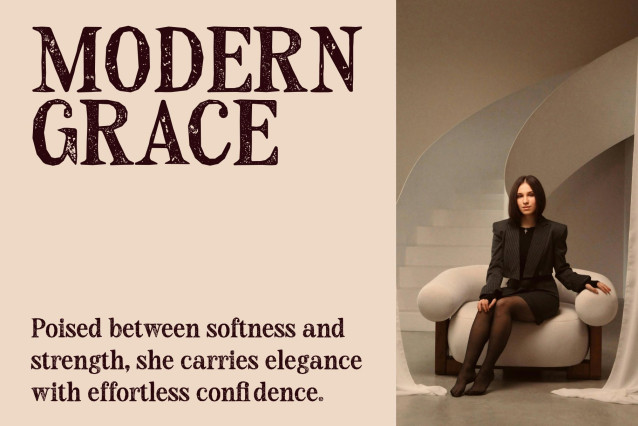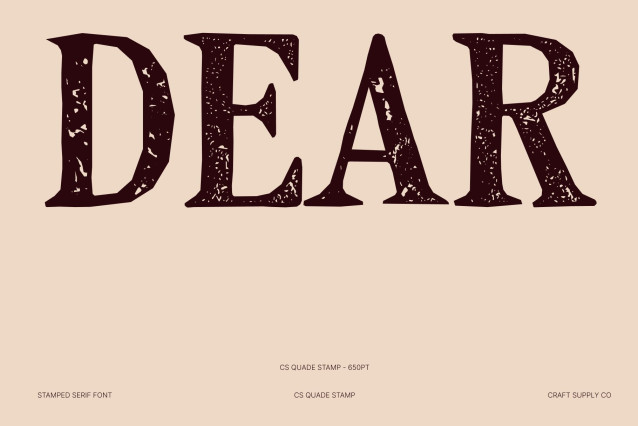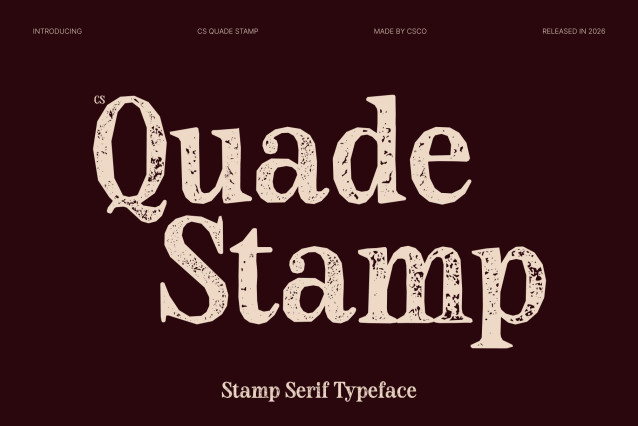
CS Quade Stamp Font
CS Quade Stamp – Modern Serif Font: Where Classic Beauty Meets Heritage Elegance
Slender Elongated Serifs with Refined Sophistication
This is a modern serif font designed with slender elongated serifs that radiate elegance, refinement, and timeless style. Its graceful proportions and clean contemporary structure create a luxurious visual rhythm, allowing every composition to feel polished, artistic, and high-end. The delicate serif details enhance its sophisticated personality while maintaining clarity and balance.
A Fusion of Classic Beauty and Modern Simplicity
This font delivers a typographic voice that feels both timeless and contemporary. Its sleek construction creates a refined editorial presence, while its elegant forms convey confidence and exclusivity. The result is a typeface that embodies heritage-inspired luxury with a fresh modern edge.
Stamped Texture with Vintage Artistic Character
This font introduces a handcrafted texture inspired by traditional print techniques. The slightly rough and organic finish adds vintage character, artistic depth, and authentic old-design charm to every letter. This textured detail enriches the font’s refined serif structure with warmth, individuality, and expressive artistry.